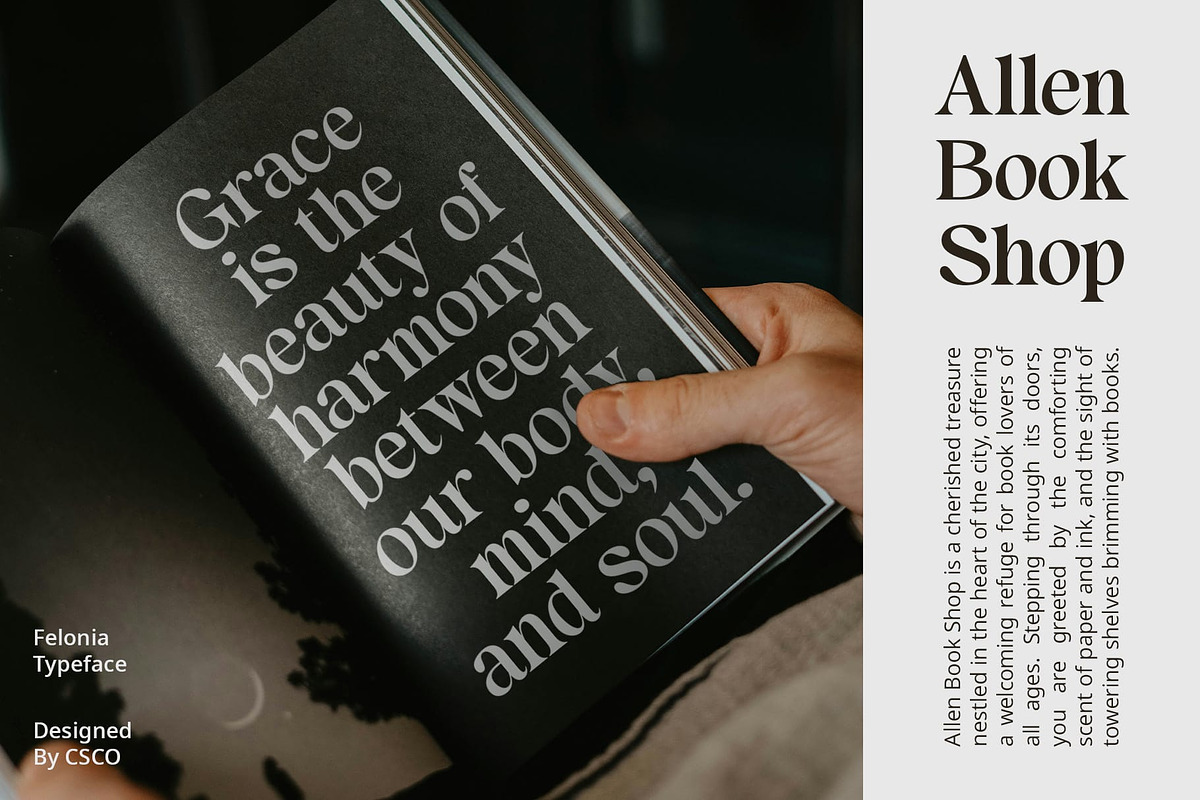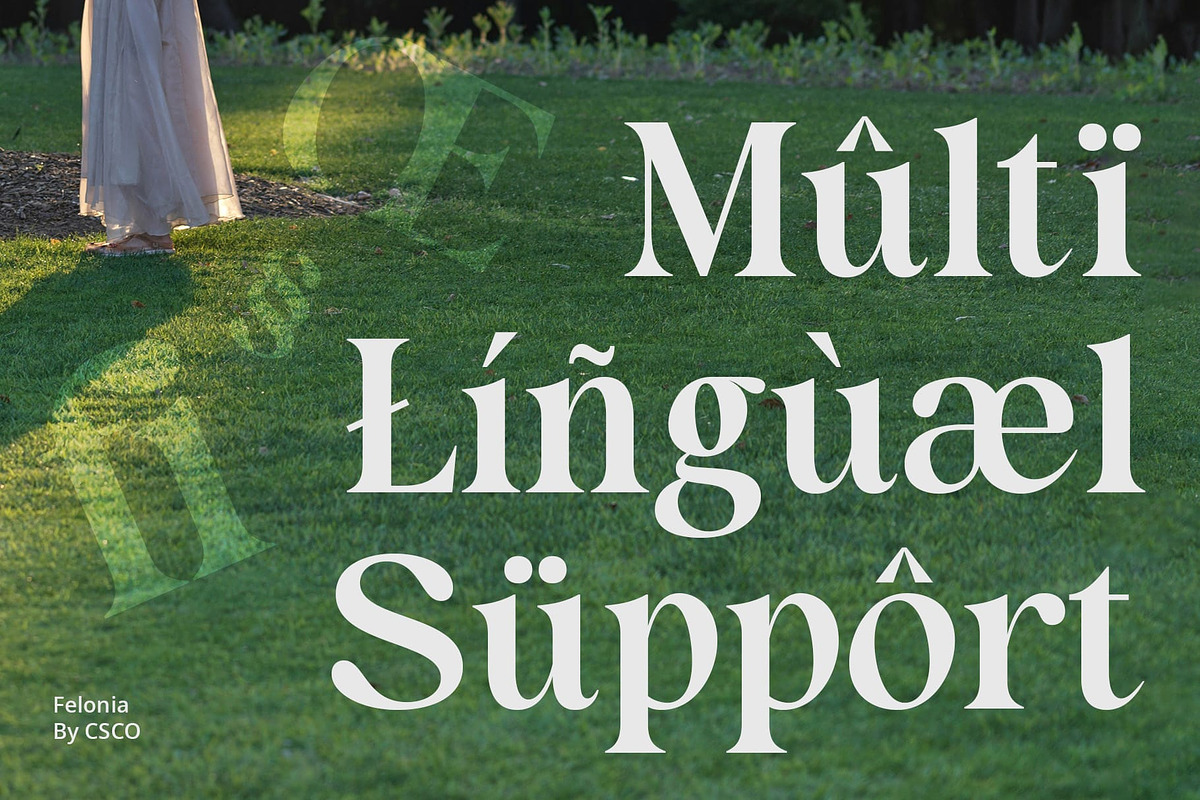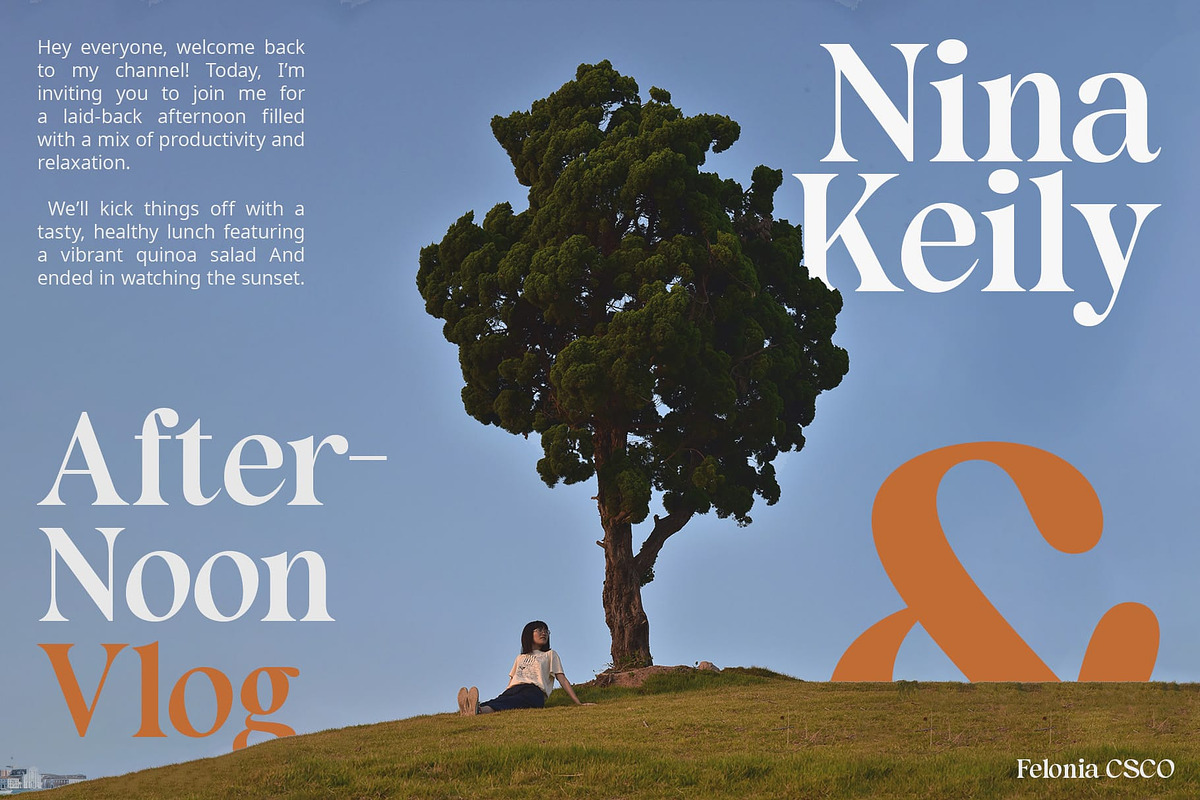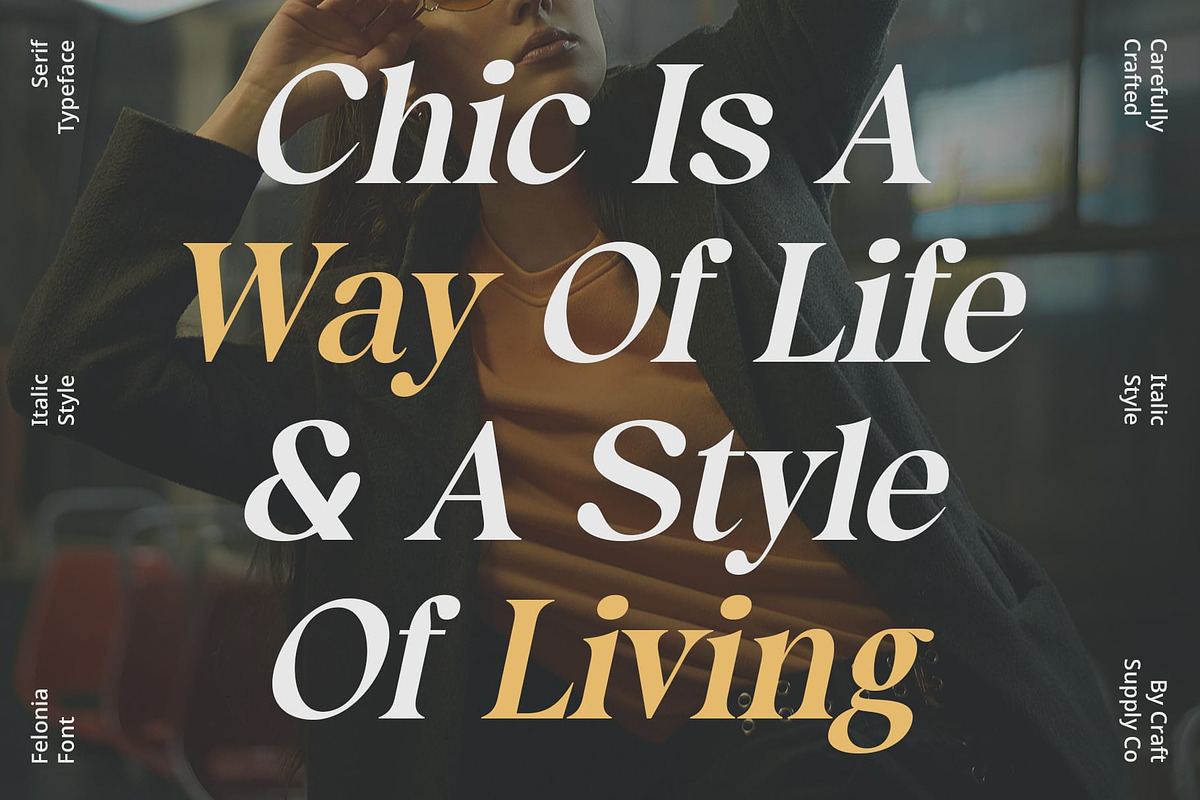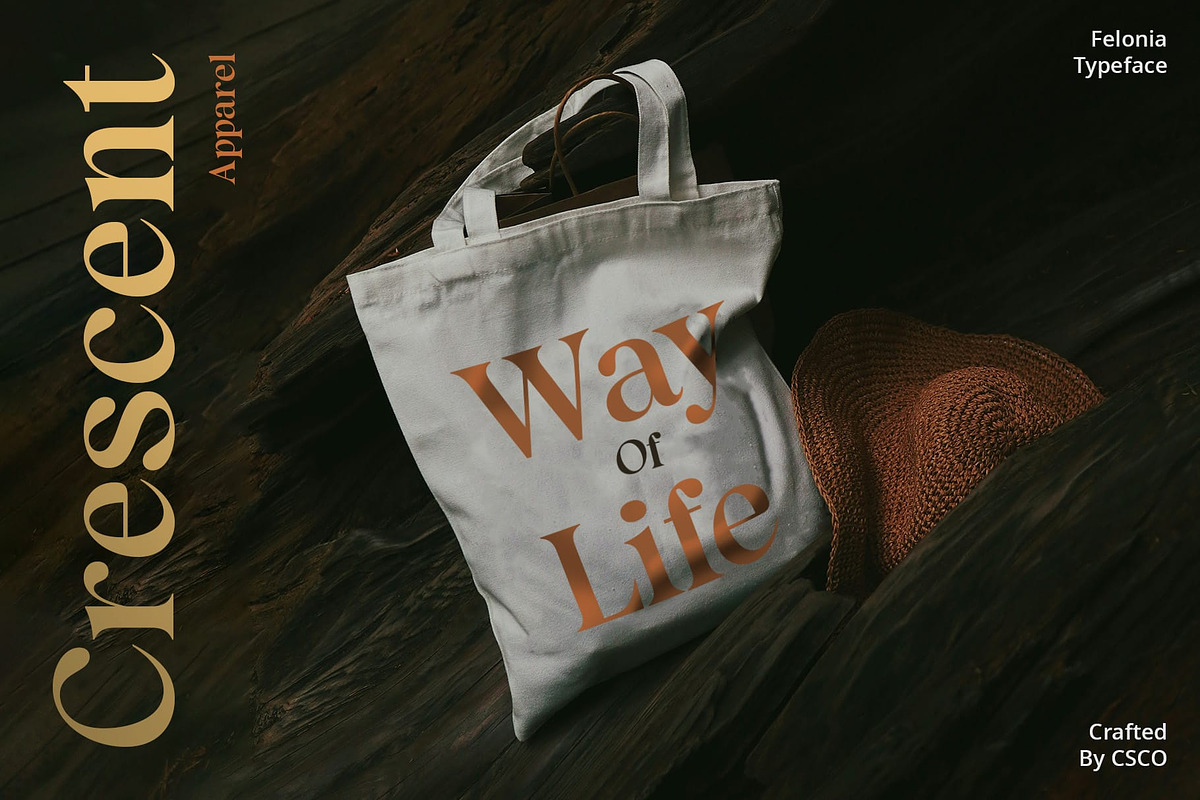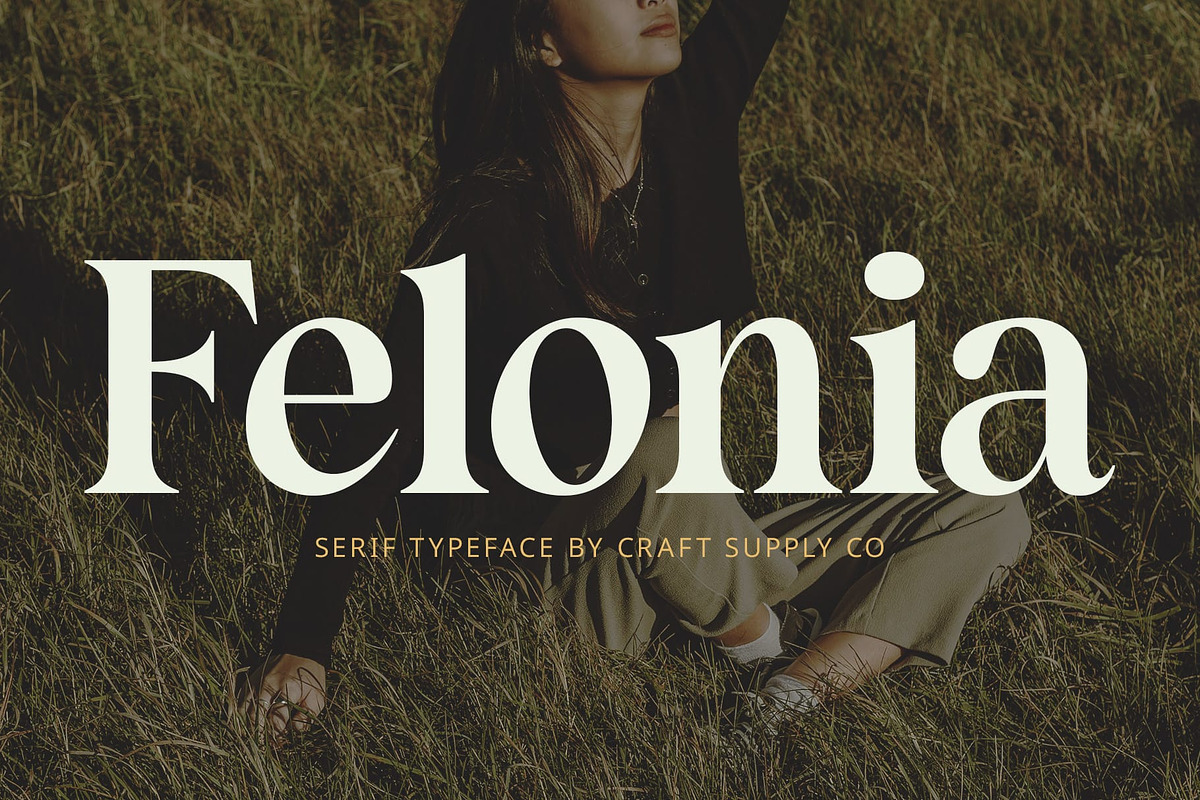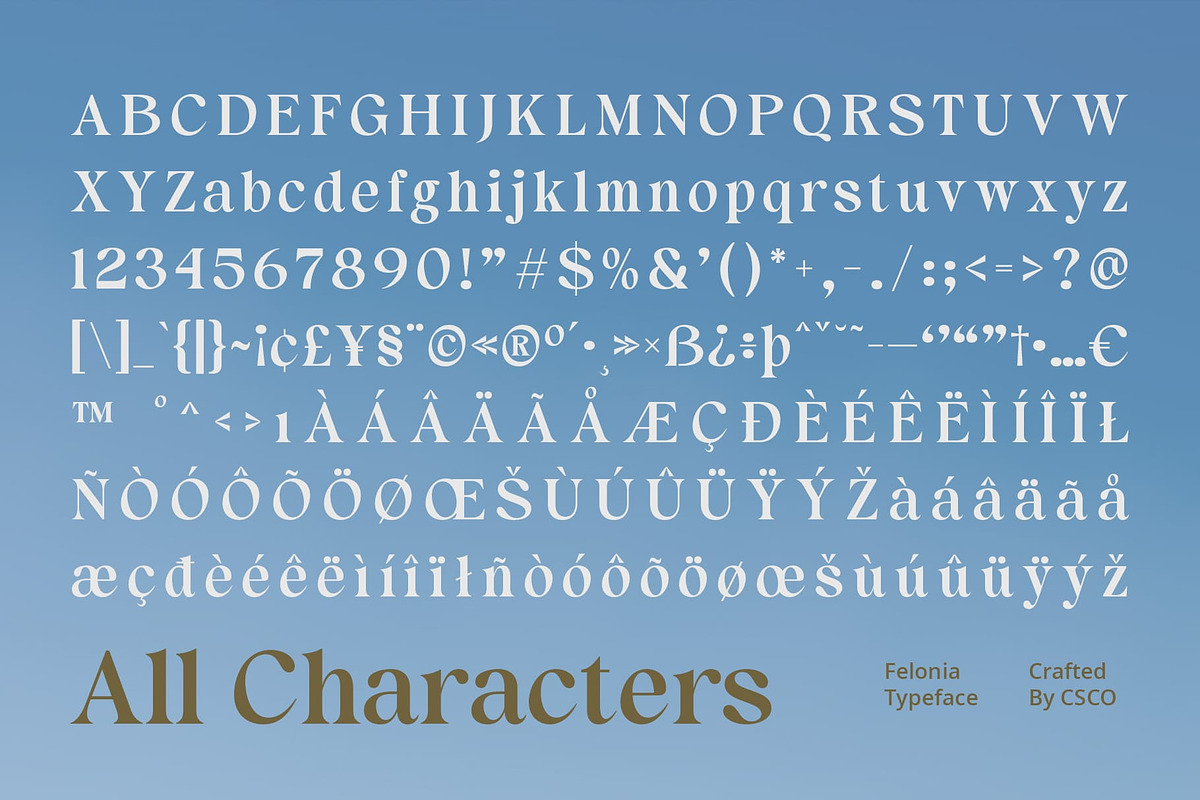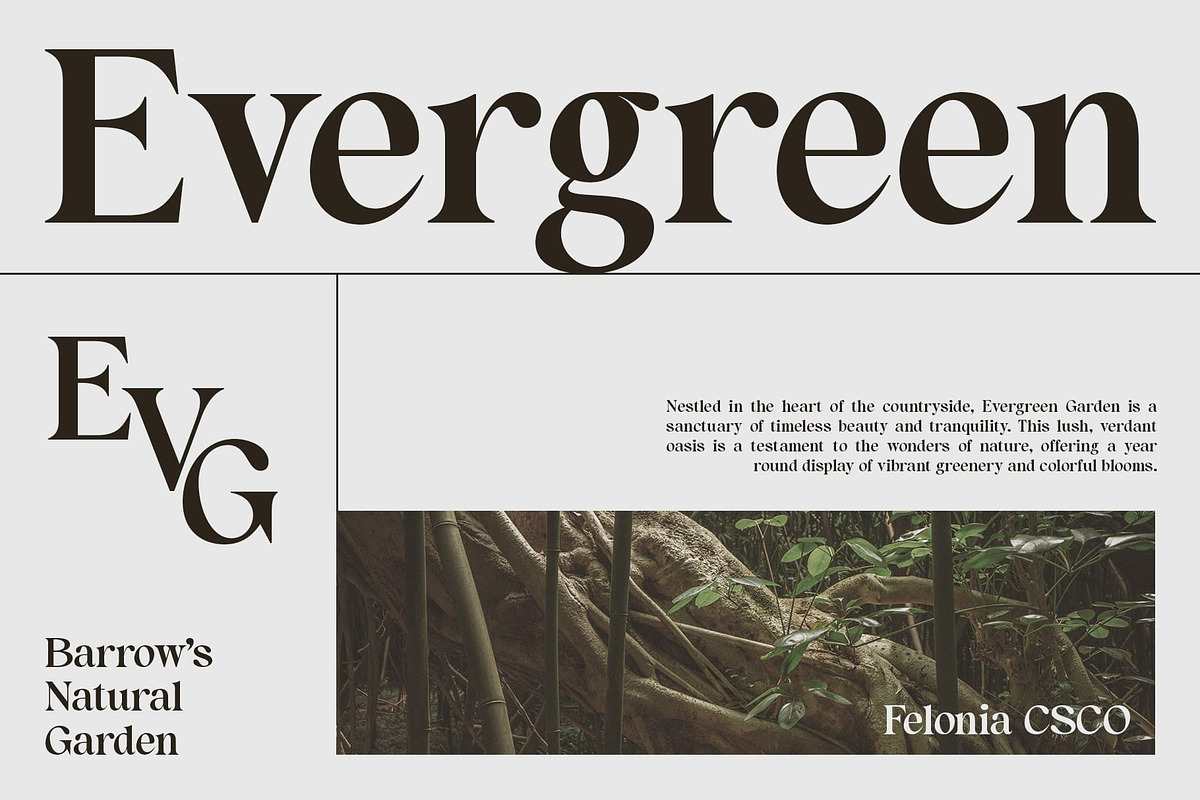
Felonia – Classic Serif
Felonia – Classic Serif: Timeless Elegance with a Retro Twist
Introduction Felonia is an elegant serif font that blends retro and classic vibes, offering sophistication and a touch of nostalgia to your designs. Its timeless appeal makes it perfect for creating fresh and innovative designs.
Elegance with a Retro Twist Felonia’s classic serif design exudes elegance, while its retro vibes add a sense of nostalgia. This unique combination makes it ideal for projects that require a balance of sophistication and vintage charm.
Perfect for Various Design Styles Whether you’re designing branding materials, editorial layouts, or signage, Felonia’s versatility makes it suitable for a wide range of design styles. Its classic serif form adds a sense of tradition, while its retro vibes bring a fresh and innovative feel to your projects.
Enhance Your Designs with Felonia With Felonia, you can elevate your designs and create a lasting impression. Its elegant serif design and retro vibes offer a unique blend of sophistication and nostalgia, making it a versatile choice for any design project.